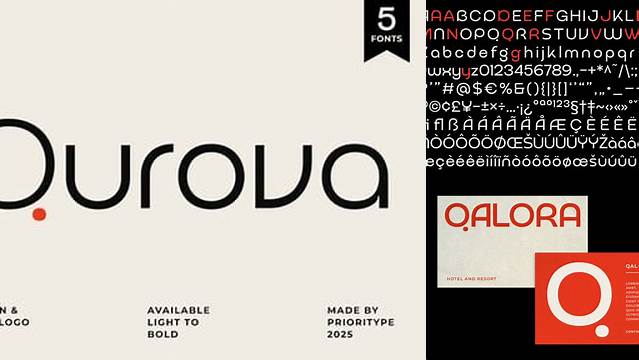
Hey guys, looking to jazz up your brand with a touch of modern elegance? Well, you're in the right place! Today, we're diving headfirst into Qurova, a stunning and versatile logo font that's absolutely perfect for a wide range of projects. And the best part? It's available for a free download! So, buckle up, because we're about to explore everything you need to know about Qurova and how it can elevate your design game. We'll cover its features, ideal uses, and where you can grab it without spending a dime. Get ready to transform your logos, headlines, and more with this fantastic font!
What Makes Qurova Font So Special? A Deep Dive
Alright, let's get down to the nitty-gritty. What exactly makes Qurova stand out from the crowd? This font isn't just another pretty face; it's packed with features that make it a top contender for your design toolkit. First off, Qurova boasts a distinctly modern aesthetic. Its clean lines, subtle curves, and well-balanced letterforms give it a sophisticated yet approachable feel. This makes it ideal for brands that want to project a sense of professionalism, style, and contemporary design. Think of it as the font equivalent of a crisp, tailored suit – it just exudes class. The design of Qurova has been carefully crafted to ensure readability across various sizes and applications. Whether you're using it for a small logo on a business card or a large headline on a website banner, the letters maintain their clarity and visual appeal. This is a crucial factor for any font intended for branding purposes, as consistency and legibility are paramount. Furthermore, Qurova offers a good range of character options, including numerals and special characters, to ensure you can use it to create a complete and cohesive design. This versatility makes it suitable for a wide array of design projects, allowing you to maintain a unified look and feel across all your branding materials. In addition to its aesthetic appeal and practicality, Qurova is a free logo font. This means you can download and use it without having to worry about licensing fees or restrictions. This is a huge bonus for small businesses, startups, and anyone working on a tight budget. Free fonts like Qurova open up a world of design possibilities, allowing you to create high-quality branding without breaking the bank. So, from the design to the price, Qurova really has it all, making it an excellent choice for all your design needs. With its elegance, versatility, and accessibility, Qurova stands out as a top-tier choice for those seeking a modern and visually appealing font.
Key Features of Qurova
- Modern and Elegant Design: Clean lines and well-balanced letterforms for a sophisticated look.
- High Readability: Maintains clarity across various sizes and applications.
- Versatile Character Set: Includes numerals and special characters for comprehensive design.
Perfect Use Cases for the Qurova Font
So, where exactly can you unleash the power of Qurova? This font is incredibly versatile, making it suitable for various design projects. One of the most obvious and effective uses is for logo design. Its clean lines and modern aesthetic make it an excellent choice for creating logos that exude professionalism and style. Whether you're designing a logo for a tech startup, a fashion brand, or a creative agency, Qurova can help you make a strong visual statement. It's also a great option for headlines and titles on websites, brochures, and other marketing materials. Its high readability ensures that your message is clear and easy to understand, even at larger sizes. Think of it as the perfect way to grab your audience's attention and draw them into your content. Furthermore, Qurova is a great choice for creating website banners and graphics. Its modern appearance helps your visuals stand out from the crowd, while its readability ensures your message is effectively communicated. The font's versatility extends to various creative projects, including social media graphics, posters, and even personal projects. If you're designing a website, consider using Qurova for your navigation menus or button text. It will give your site a cohesive and polished look. And for those of you who are into crafting, Qurova can be used to create beautiful invitations, cards, and other personalized items. Because of its versatility and free availability, Qurova will make your branding and design projects stand out, no matter the scope.
Qurova Font Applications
- Logo Design: Ideal for creating professional and stylish logos.
- Headlines and Titles: Enhances readability and grabs attention.
- Website Banners and Graphics: Adds a modern touch to visuals.
- Social Media Graphics: Creates eye-catching posts and stories.
- Print Materials: Used for brochures, flyers, and posters.
Tips for Using Qurova in Your Designs
Alright, now that you have Qurova downloaded and ready to go, let's talk about some pro tips to help you make the most of this amazing font. First off, consider the context. Think about where you'll be using the font and what message you want to convey. Is it for a formal business document, or a fun and playful social media post? Qurova's versatility allows it to fit a wide range of contexts, but matching the font with the right message is essential. Secondly, experiment with different weights and sizes. Qurova might come in various weights (like light, regular, and bold), which can be used to add depth and visual interest to your designs. Play around with different sizes to find the perfect balance between readability and impact. Remember, bigger isn't always better! Next up, pair it with other fonts. Mixing Qurova with a complementary font can create a more dynamic and visually appealing design. Consider pairing a clean and modern font like Qurova with a serif font for body text to create contrast. Finally, pay attention to kerning and spacing. Kerning refers to the space between individual letters, while spacing refers to the overall distance between words and lines. Adjusting these settings can significantly improve the readability and aesthetics of your designs. Proper kerning can prevent letters from appearing too close together or too far apart, while appropriate spacing can create a comfortable and visually pleasing layout. Overall, by keeping these tips in mind, you'll be well on your way to creating stunning designs that effectively communicate your message and capture your audience's attention. Don't be afraid to try things out and see what works best for you. With Qurova, the possibilities are endless.
Design Best Practices
- Consider the Context: Choose the right tone for your project.
- Experiment with Weights and Sizes: Find the perfect balance.
- Pair with Complementary Fonts: Create visual contrast.
- Pay Attention to Kerning and Spacing: Improve readability and aesthetics.
Conclusion: Elevate Your Designs with Qurova
In conclusion, Qurova is an exceptional free logo font that offers a perfect blend of modern elegance, versatility, and ease of use. Its clean lines, high readability, and diverse character set make it a fantastic choice for various design projects, from logo design to website headlines and social media graphics. The fact that it's available for free makes it even more appealing, allowing designers of all budgets and skill levels to create stunning visuals. By following the tips and best practices outlined in this guide, you can harness the full potential of Qurova and transform your designs into something truly remarkable. So, go ahead and download Qurova today – we know you'll love it! Happy designing, guys!